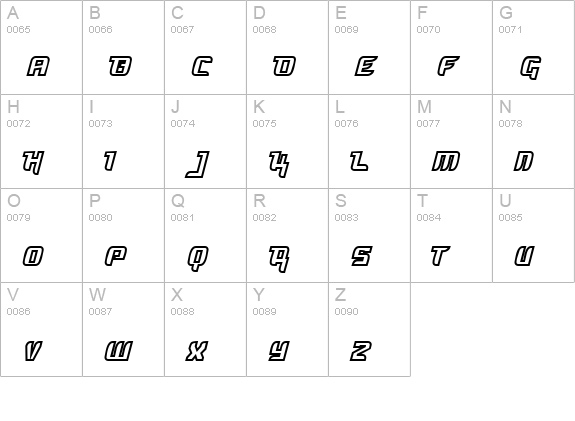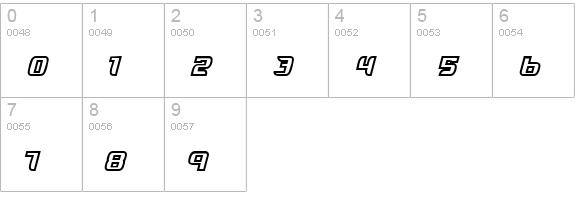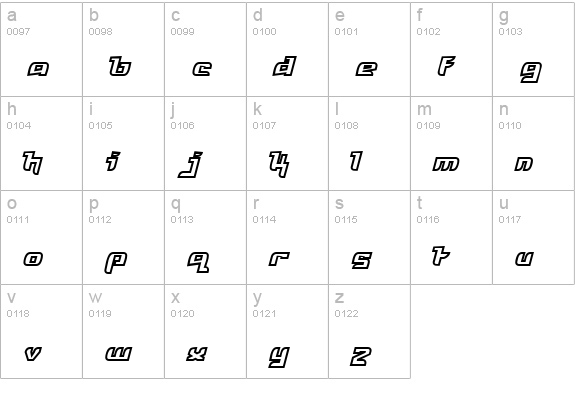
Freya Outline Font Details
Freya Outline font is a modern and stylish typeface that exudes elegance and sophistication. With its clean lines and unique design, this font is perfect for adding a touch of class to any project. The Freya Outline font is versatile and can be used for various purposes, from branding to editorial design. The best part is that Freya Outline font is available for free download at FontsMarket.com. This means you can easily access this beautiful font and use it in your projects without any cost. Don't miss out on the opportunity to enhance your designs with the stunning Freya Outline font today!